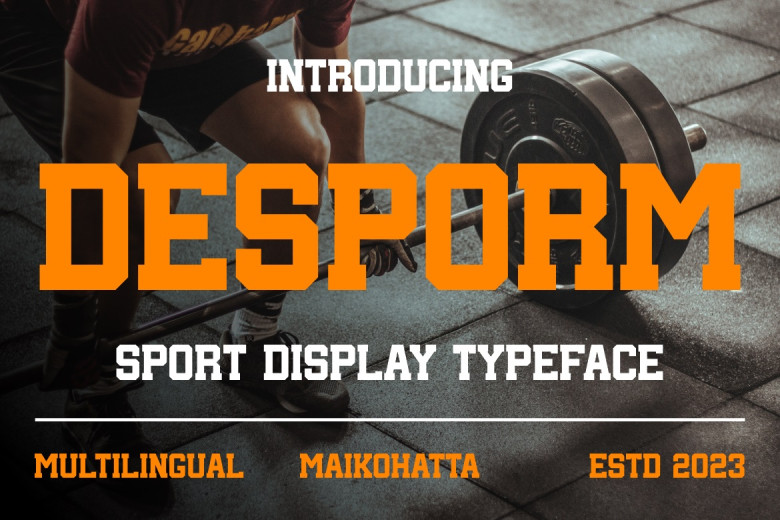
Desporm Font
Desporm Display Font was designed to convey the energy, enthusiasm, and strength often associated with physical activity and sports. This font can be found used as part of branding identities for sporting teams, businesses that specialize in physical activity or even big sporting events – creating powerful visual appeal while simultaneously connecting emotionally with crowds through its sense of accomplishment and competition.
Desporm Display Font